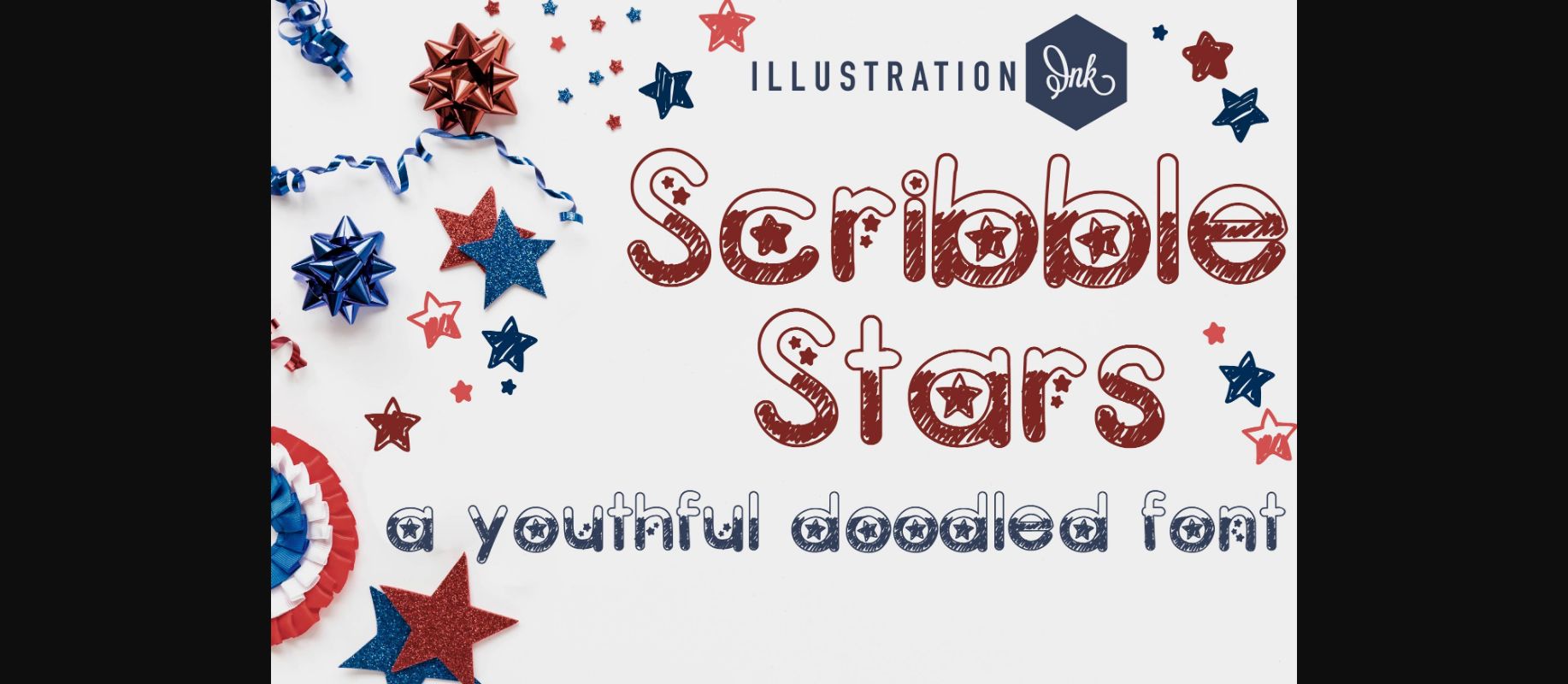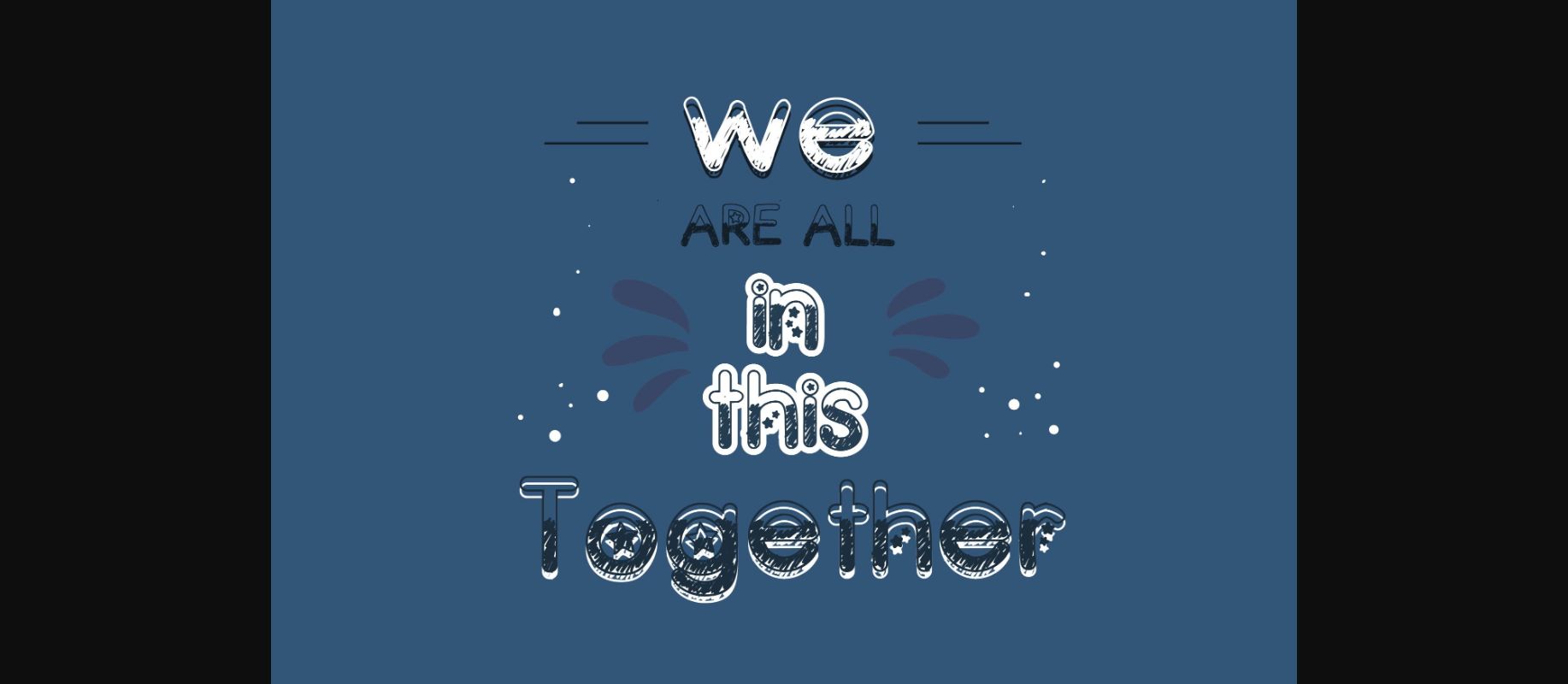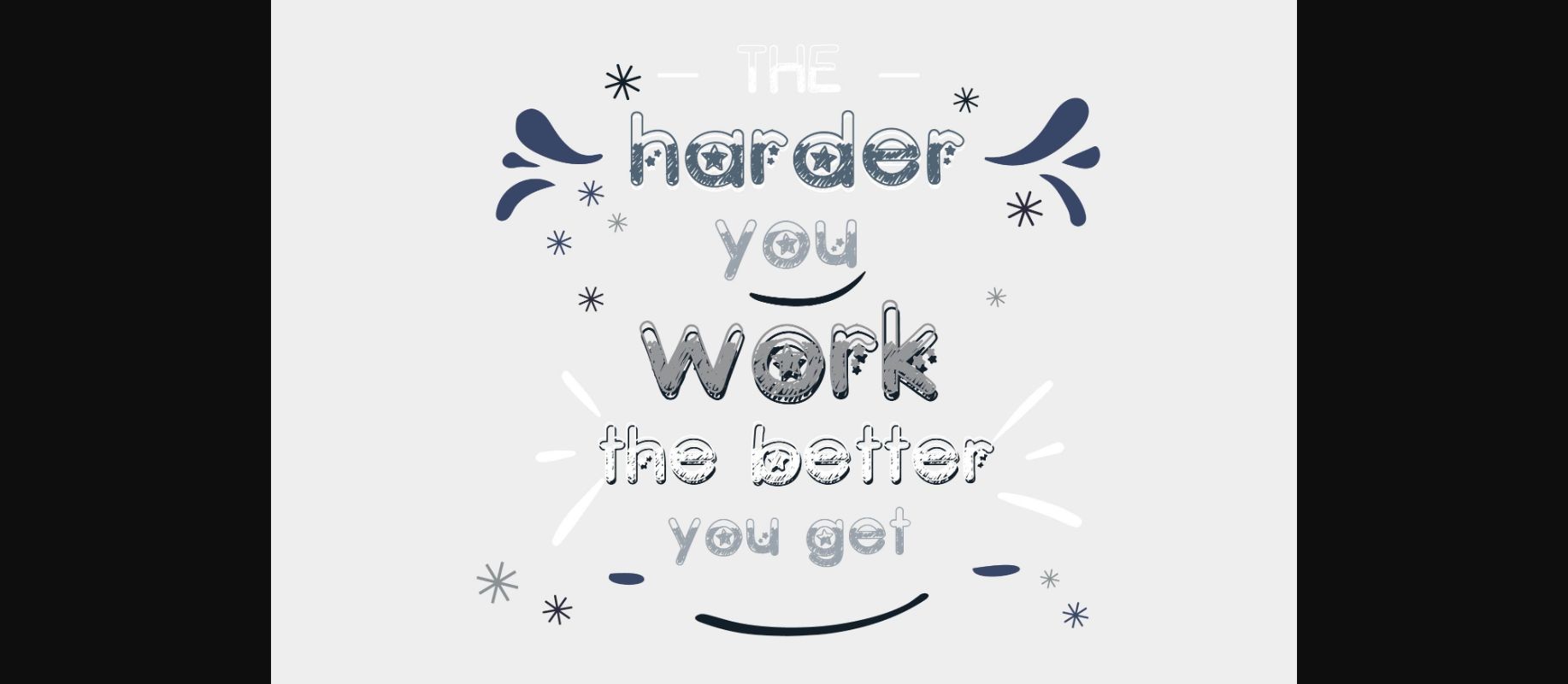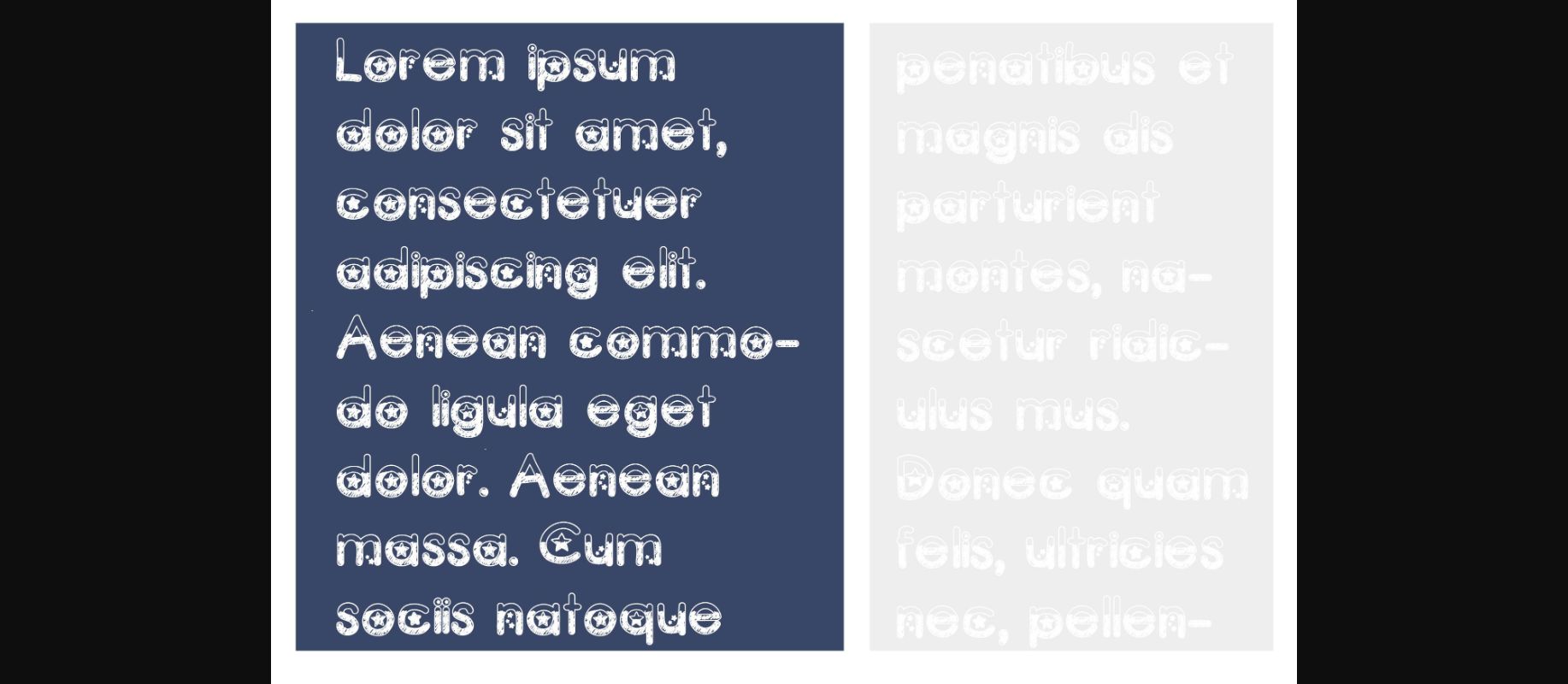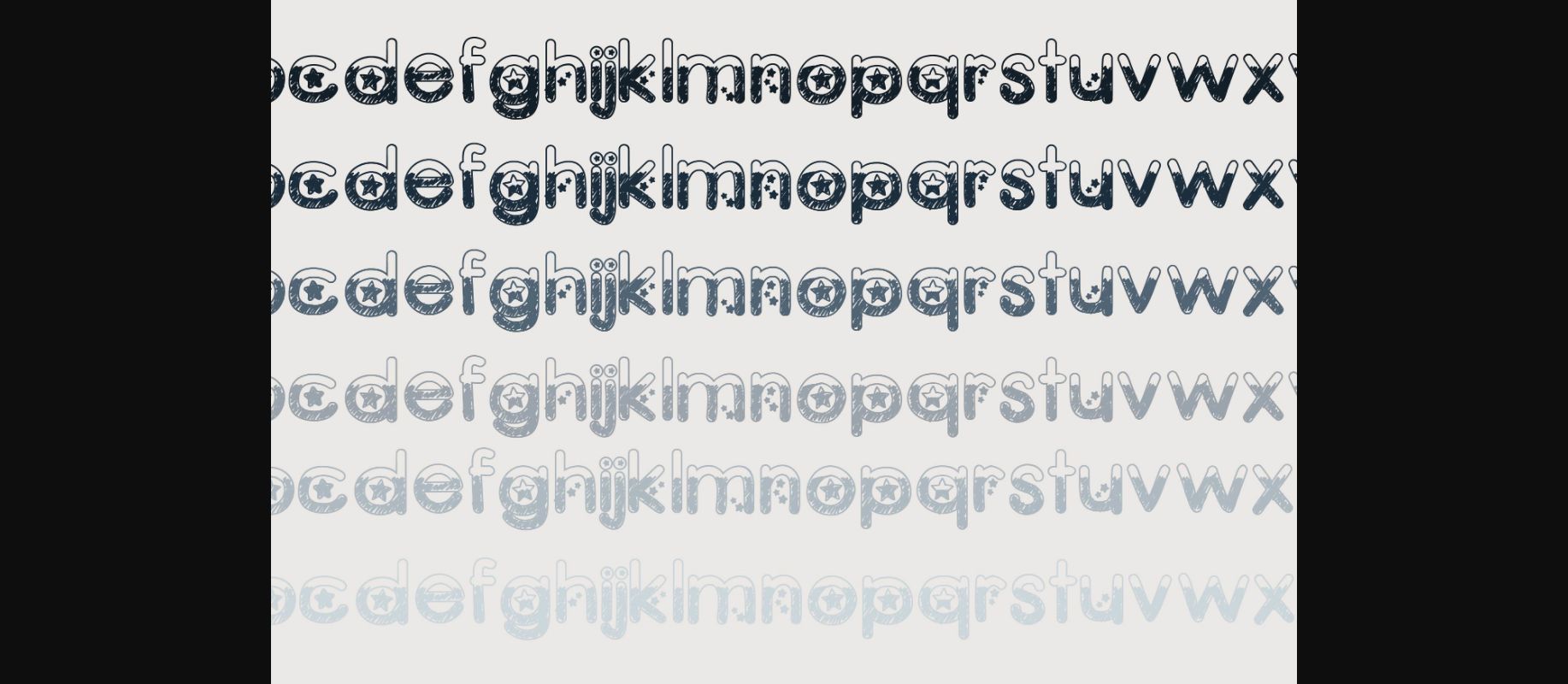
About Scribble Stars Font
Each letter is uniquely designed with hand-drawn doodle elements adding a fun and creative touch to your text. What makes this font truly special is the delightful star decorations scattered throughout, adding a touch of magic and wonder to your words. Whether you’re creating invitations or greeting cards, or simply want to add a touch of whimsy to your designs, Scribble Stars is sure to bring a smile to anyone who sees it.